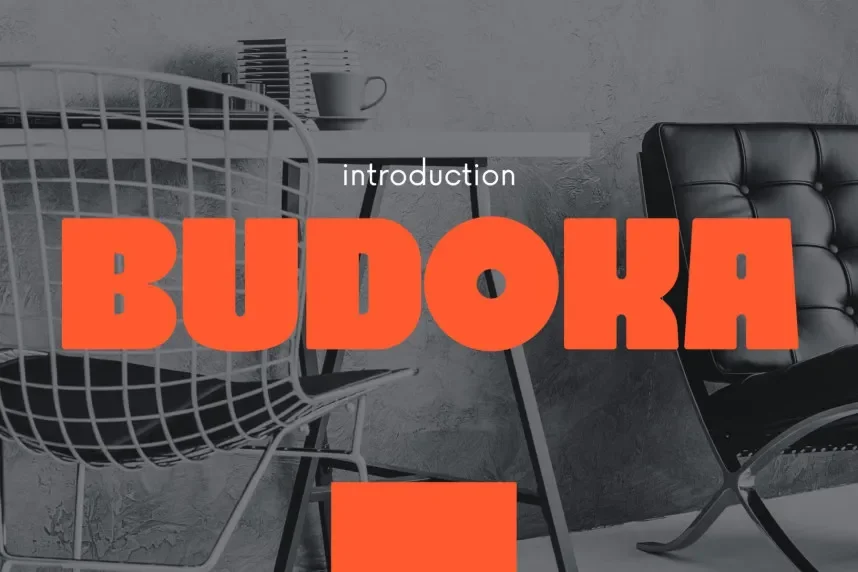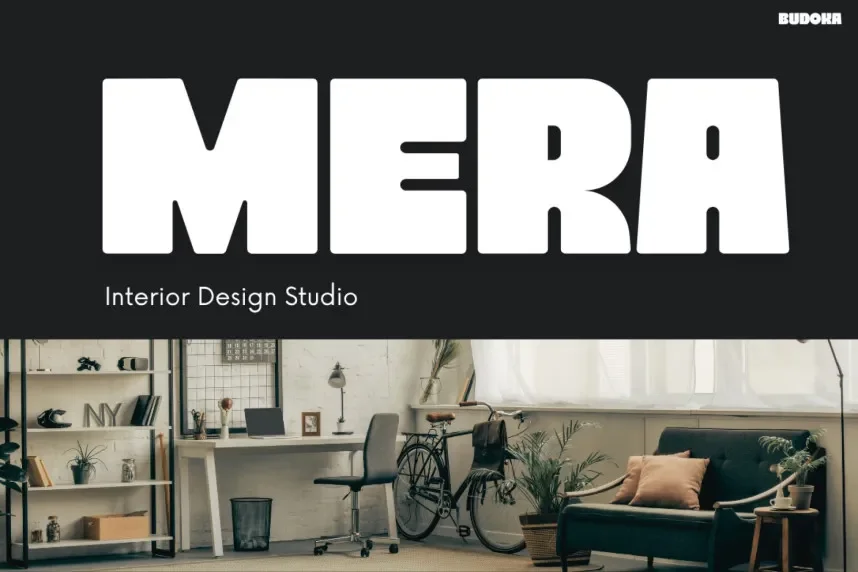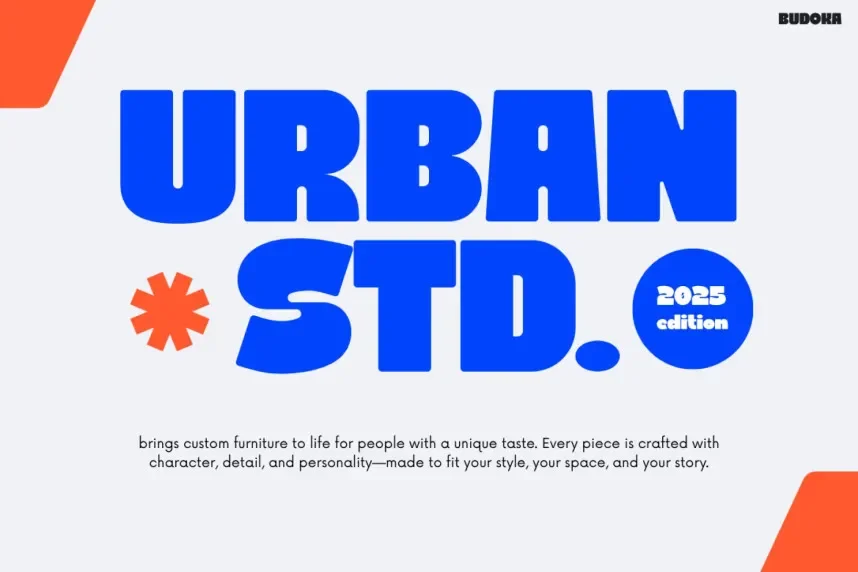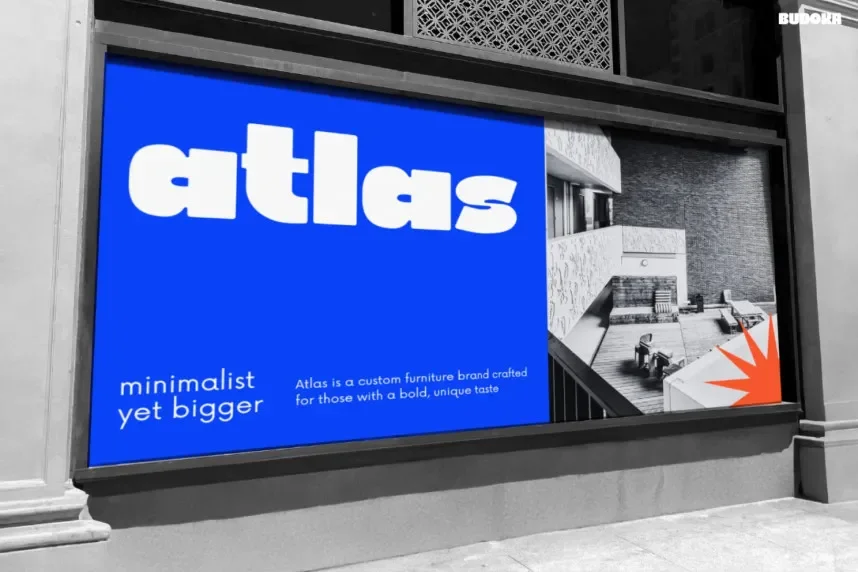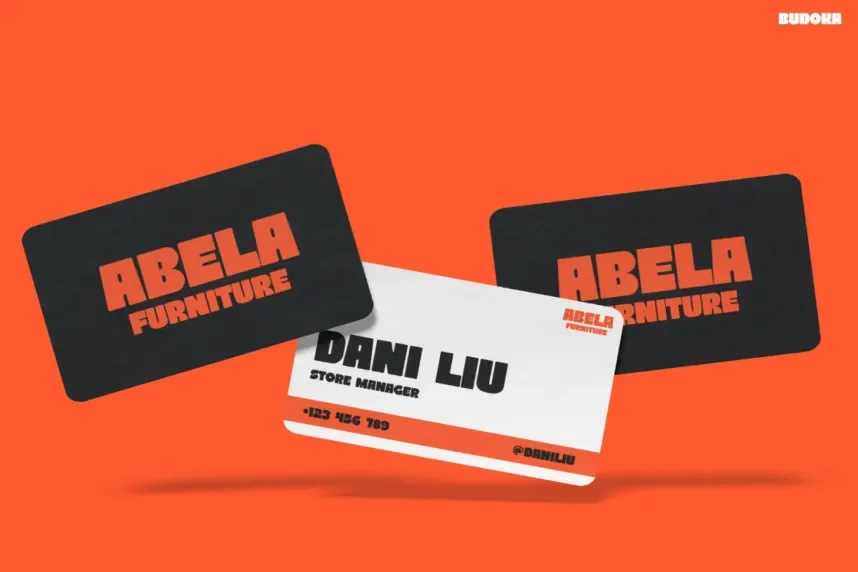
Budoka Font is a brush-style script typeface inspired by hand-painted lettering. It features uneven stroke widths, rough edges, and flowing curves that reflect real brush movement. The letterforms connect loosely, with natural gaps that improve word recognition in short text. The font favors expressive shapes over strict symmetry, which suits display use rather than long paragraphs.